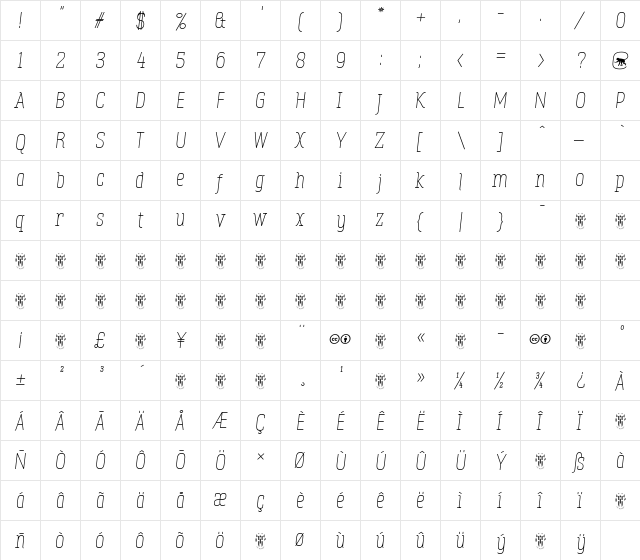
Zowieyo Italic
| Designer | Tup Wanders |
Design Context for Zowieyo Typeface
Zowieyo takes a measured approach to typography — its balanced proportions and neutral character make it a reliable workhorse for both digital and print work. The dynamic lean of this cut emphasises speed and emphasis in any layout.